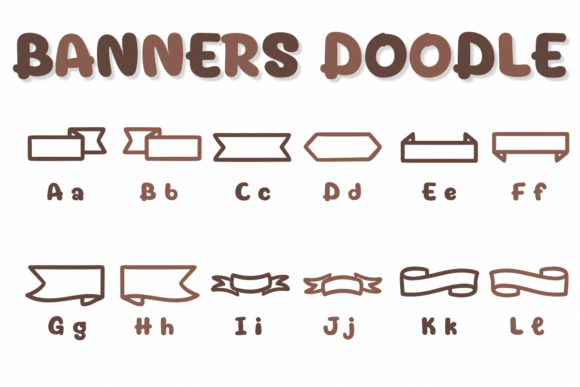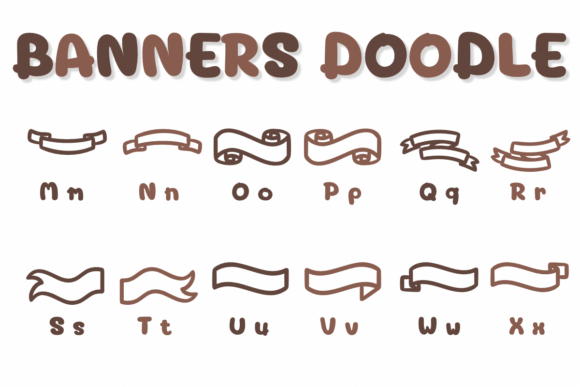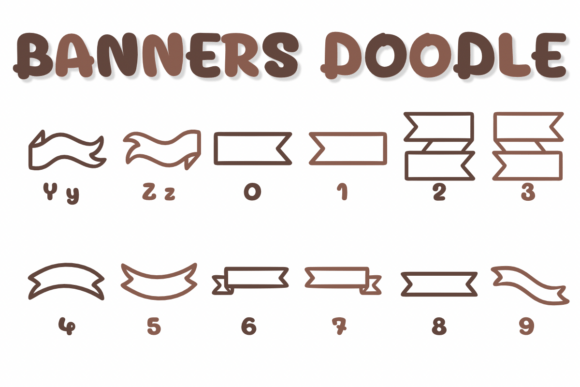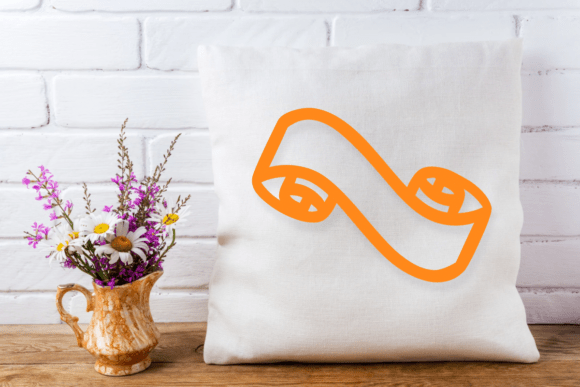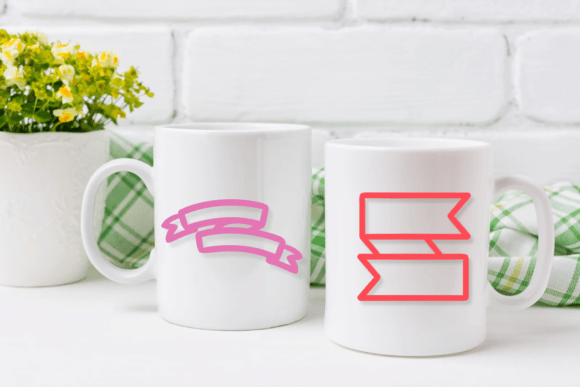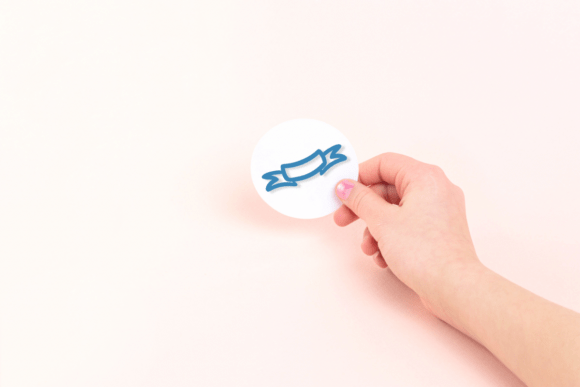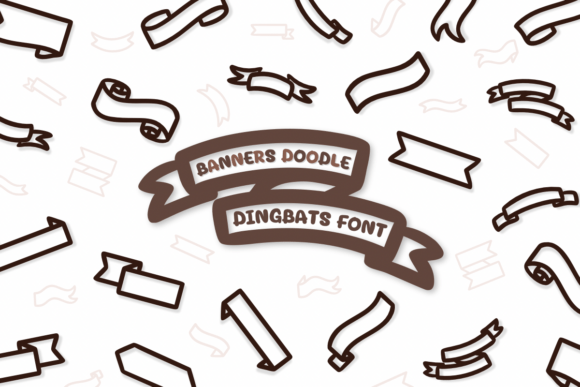
Banners Doodle Font: Elevate Your Creative Projects with a Sketched Style
Are you a designer, crafter, or DIY enthusiast looking for a unique font to add a personal touch to your creative projects? Look no further than Banners Doodle Font, a dingbats font with a charming sketched style. This versatile font is perfect for a wide range of applications, from wedding invitations and crafts to decorations, logos, and more.
What is Banners Doodle Font?
Banners Doodle Font is a dingbats font that features a delightful sketched style, reminiscent of hand-drawn doodles. The font is made up of intricate illustrations and patterns, carefully crafted to add a touch of whimsy and personality to your designs. With its unique and eye-catching style, Banners Doodle Font is sure to make your creative projects stand out from the crowd.
Uses for Banners Doodle Font
One of the best things about Banners Doodle Font is its versatility. This font can be used for a wide range of creative projects, including:
- Wedding Invitations: Add a personal touch to your wedding invitations with Banners Doodle Font. The font’s sketched style and charming illustrations make it perfect for wedding stationery, save-the-date cards, and more.
- DIY and Crafts: Banners Doodle Font is a great choice for DIY enthusiasts and crafters. Use the font to add a personal touch to your handmade cards, gift tags, and other craft projects.
- Decorations: Use Banners Doodle Font to create beautiful decorations for parties, events, and special occasions. The font’s illustrations and patterns can be used to create stunning banners, garlands, and more.
- Logos and Branding: Banners Doodle Font can also be used to create unique logos and branding materials. The font’s distinctive style makes it perfect for businesses and individuals looking to stand out from the crowd.
Benefits of Using Banners Doodle Font
So why choose Banners Doodle Font for your creative projects? Here are just a few benefits of using this amazing font:
- Unique and Eye-Catching: Banners Doodle Font is a one-of-a-kind font that will add a touch of personality to your designs. The font’s sketched style and charming illustrations make it perfect for creating unique and eye-catching designs.
- Versatile: Banners Doodle Font can be used for a wide range of creative projects, from wedding invitations to logos and branding materials.
Tips for Using Banners Doodle Font
Here are a few tips for getting the most out of Banners Doodle Font:
- Experiment with Different Sizes: Banners Doodle Font looks great in a variety of sizes, from large headings to smaller text. Experiment with different sizes to find the perfect fit for your design.
- Combine with Other Fonts: Banners Doodle Font pairs well with a variety of other fonts. Try combining it with a simple sans-serif font for a striking contrast.
- Use for Headings and Titles: Banners Doodle Font is perfect for headings and titles, where its unique style can really shine.